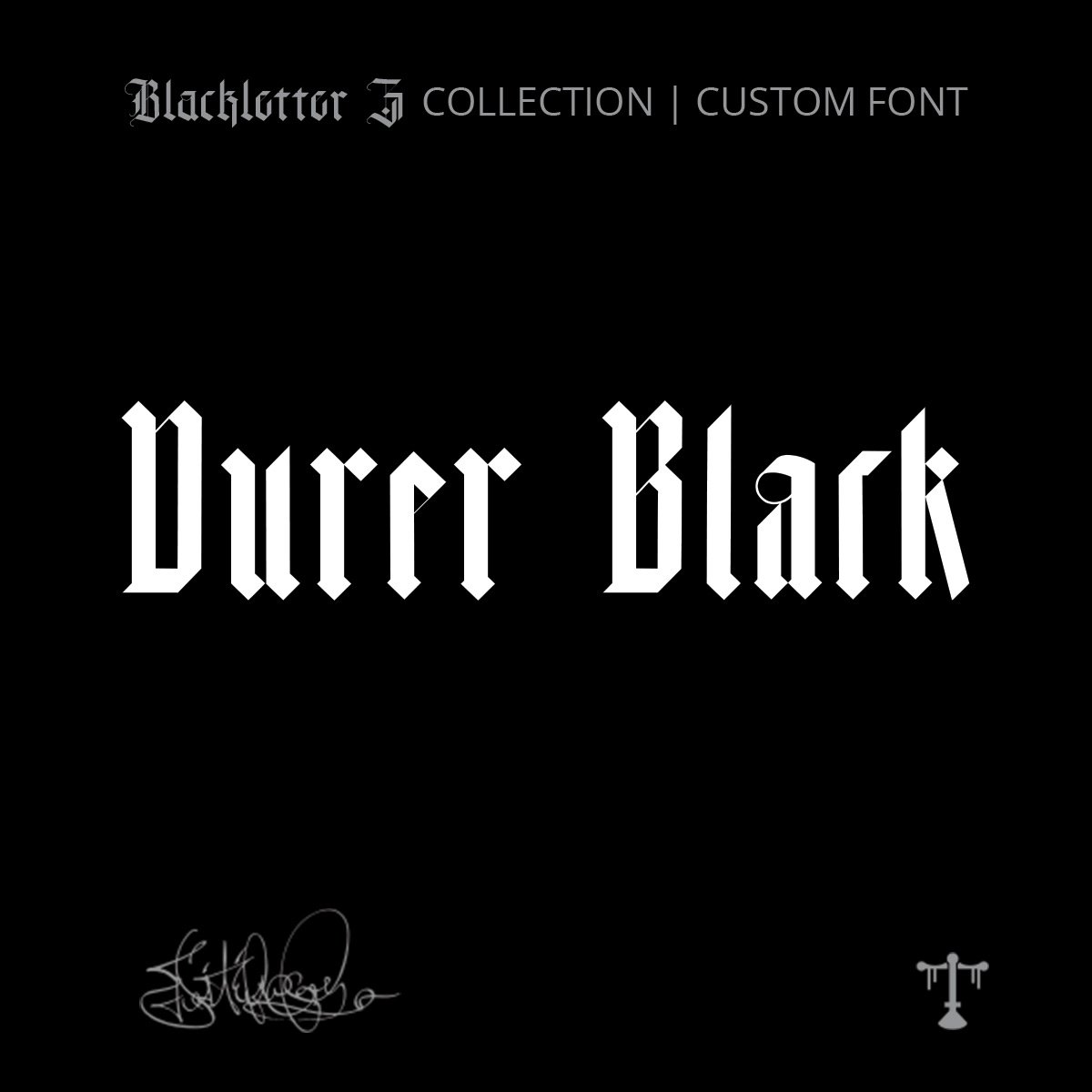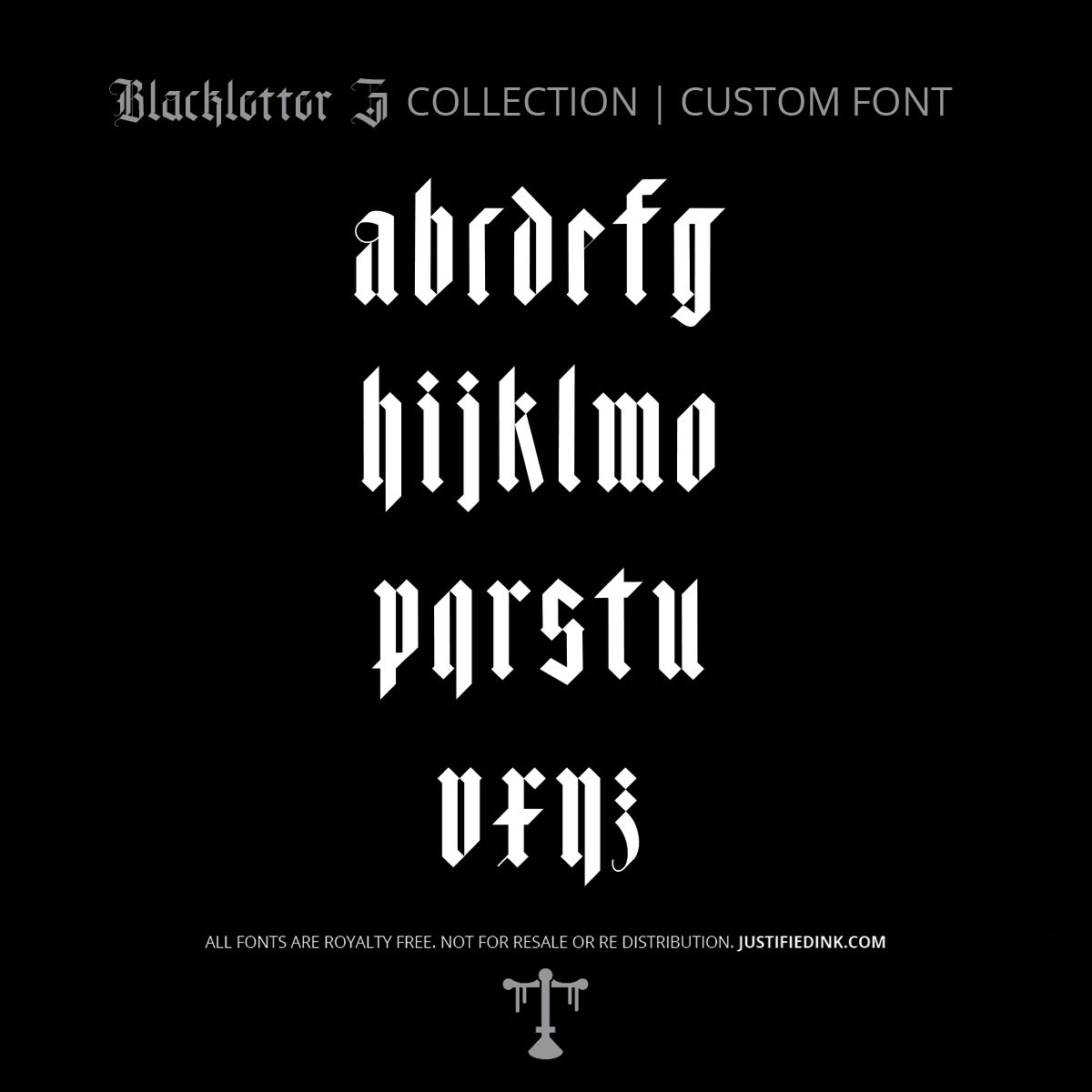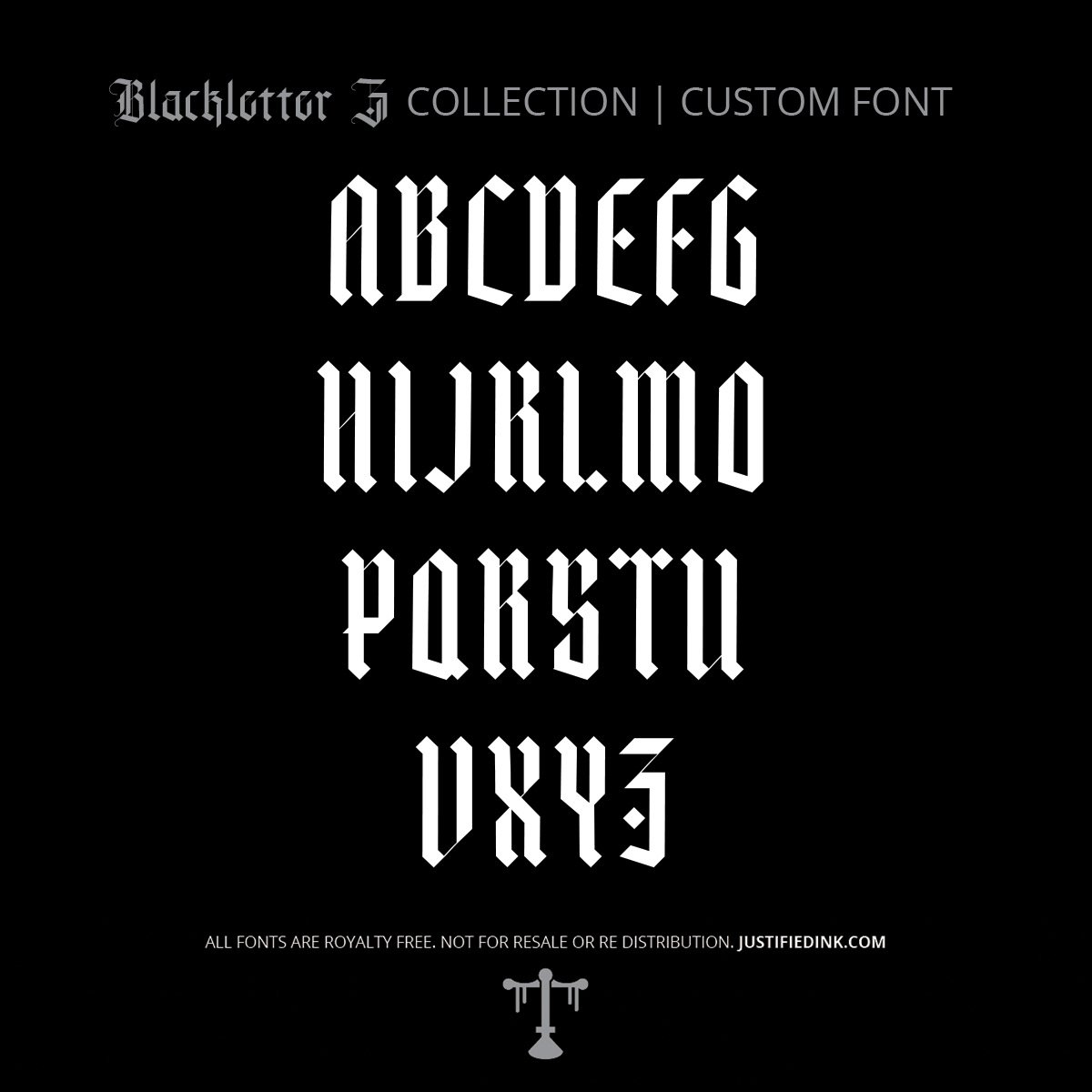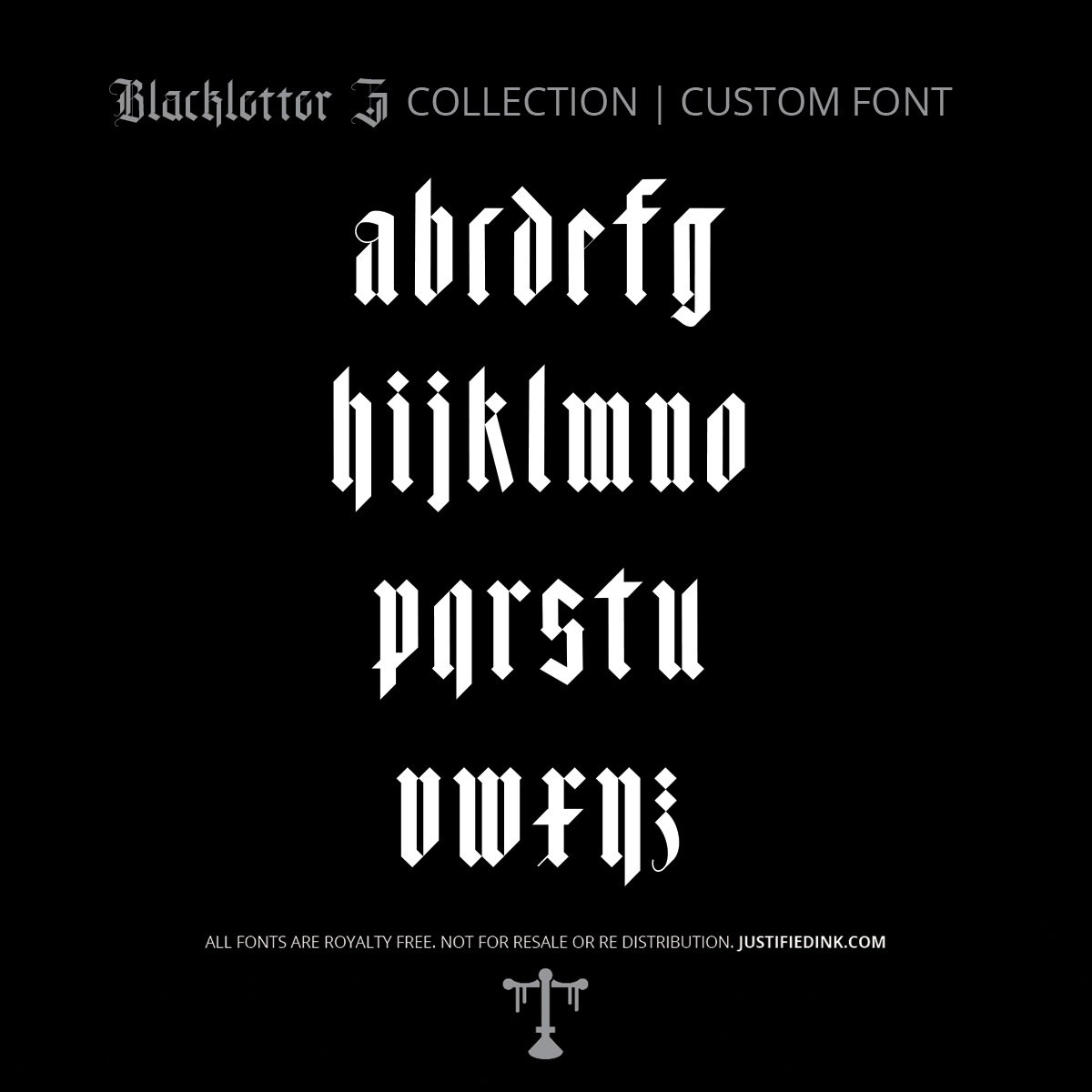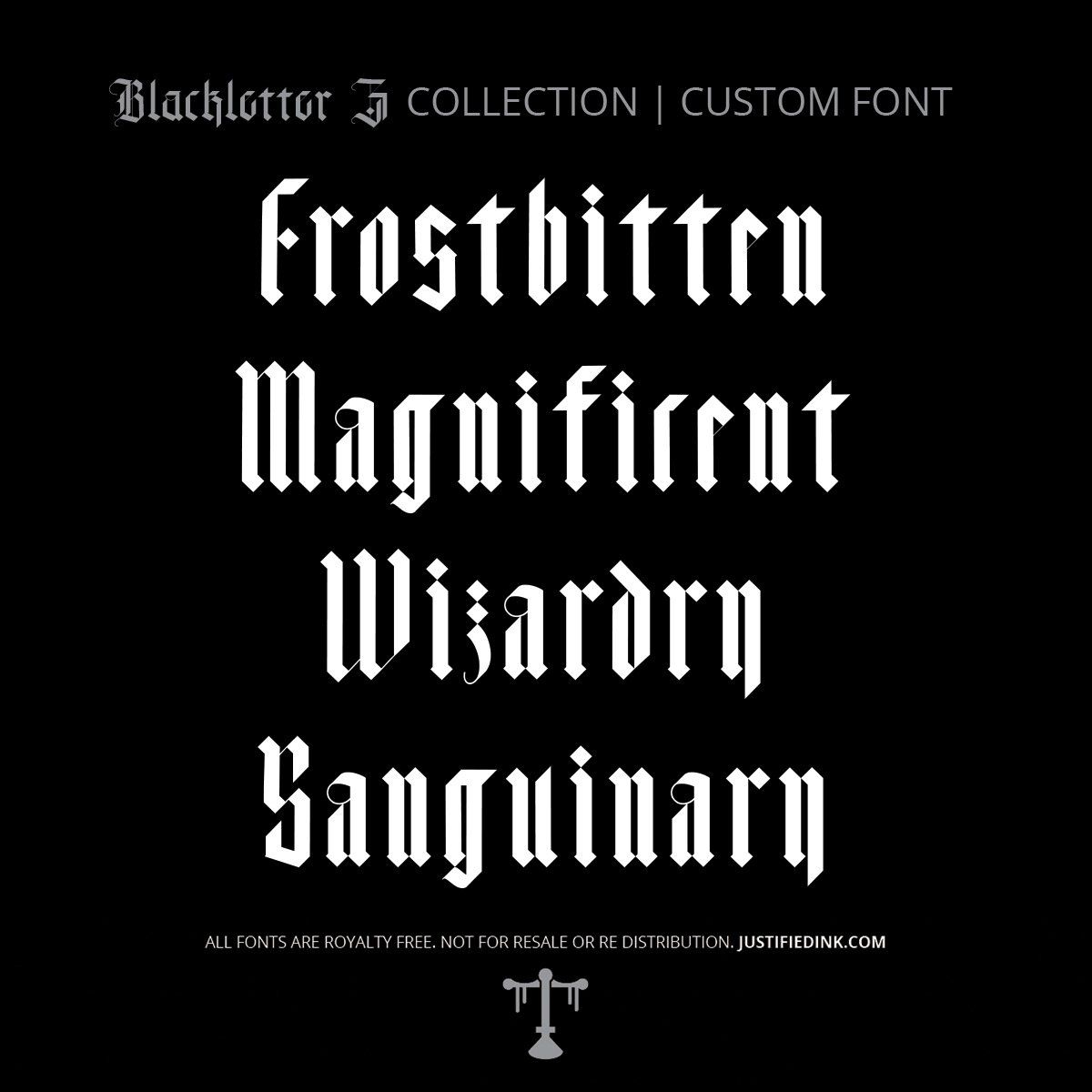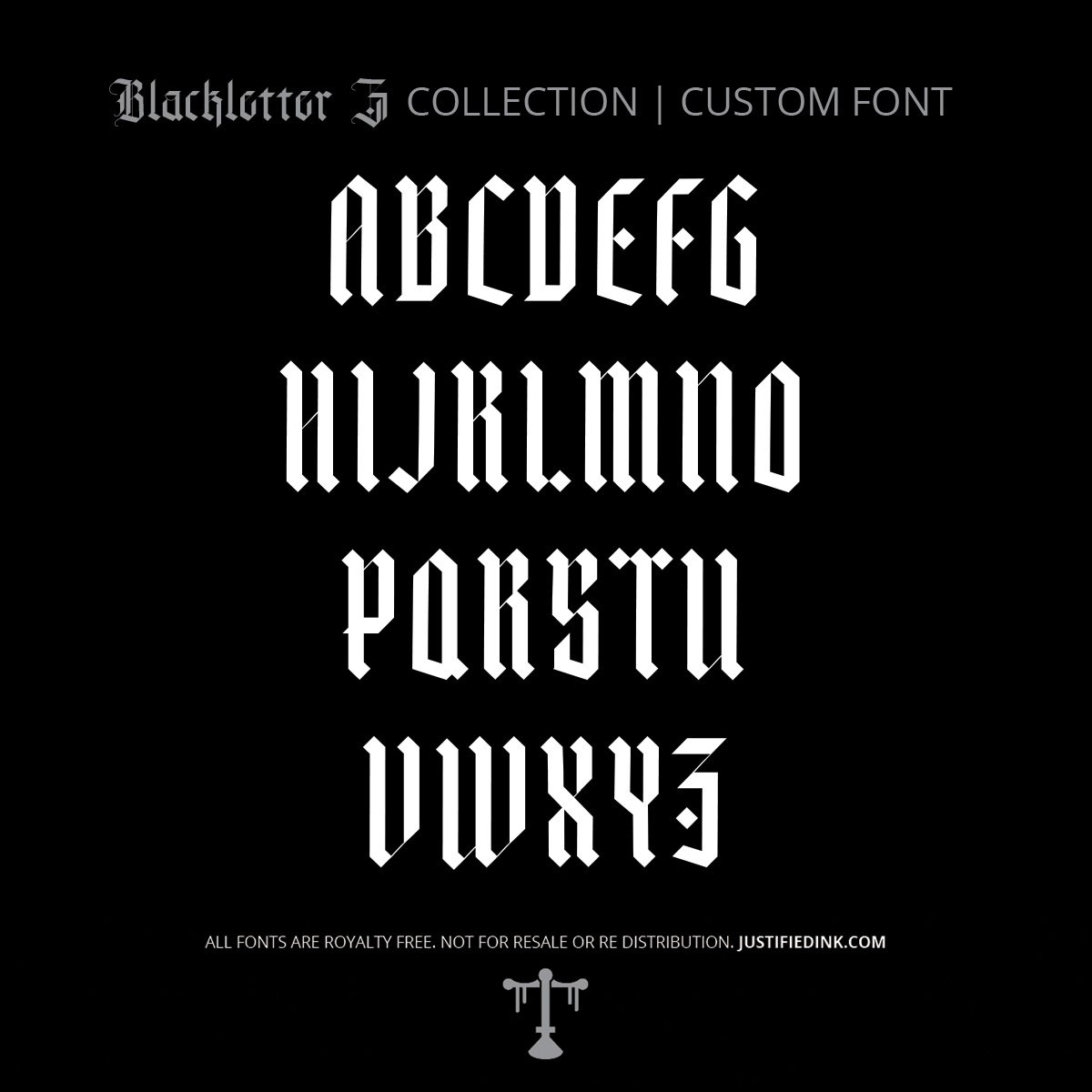
Durer Black (1 style) - Custom Font
Heavier Strokes of a Master’s Legacy
Inspired by the work of Albrecht Dürer, Durer Black carries the bold weight of Northern Renaissance blackletter. This heavy gothic font emphasizes thick strokes and dramatic contrast, designed for those seeking authority, ritual, and presence in their letterforms. Whether for tattoo lettering, poster work, or experimental design, Durer Black transforms text into monuments of ink and shadow.
NAME: Durer Black